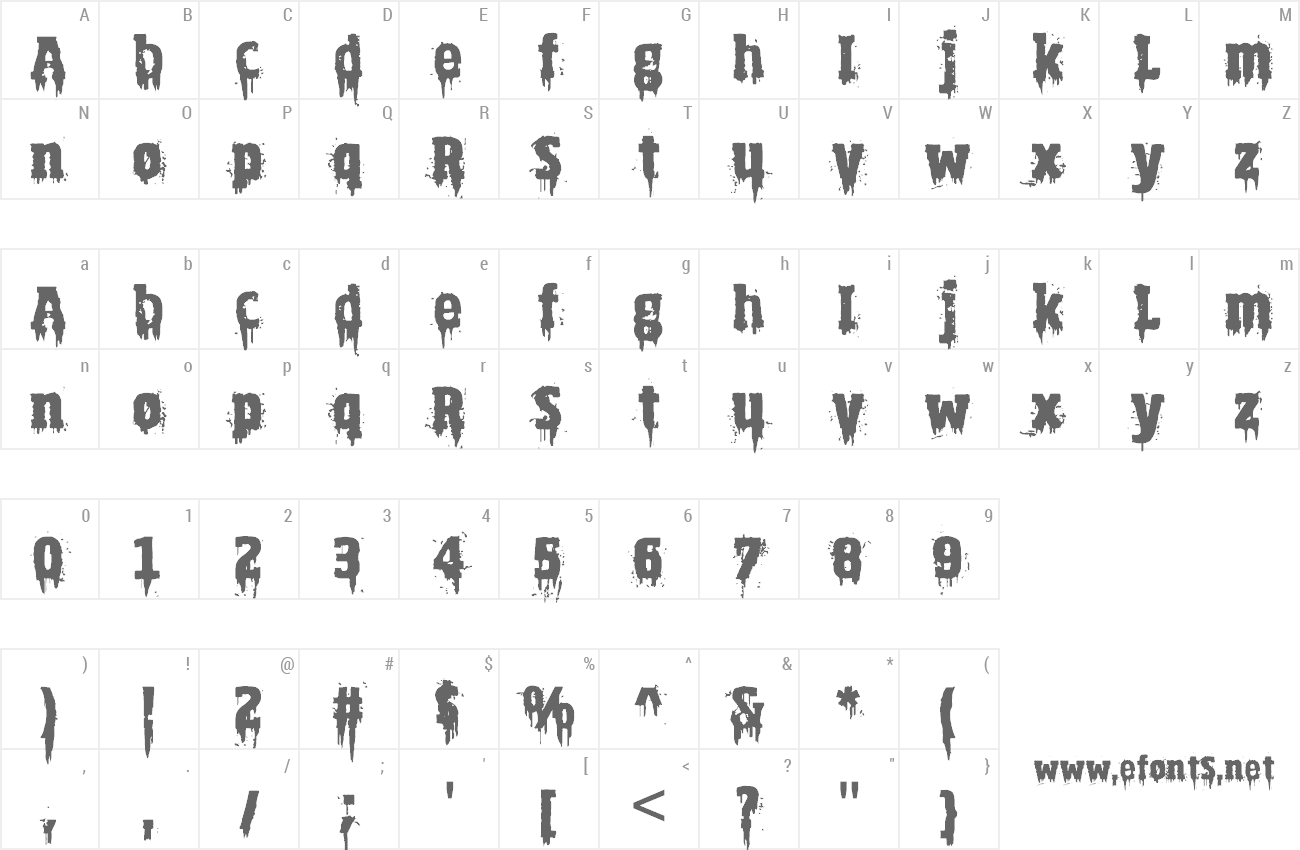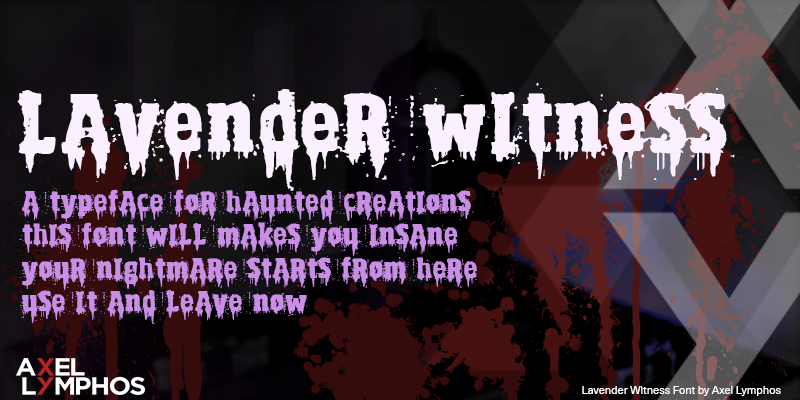
| Font name: | Lavender Witness |
| Author: | Axel Lymphos |
| Note by Axel Lymphos | |
This font came from unreal syndrome that potentially damage your brain. A typeface for haunted creations Use it! LEAVE NOW!! |